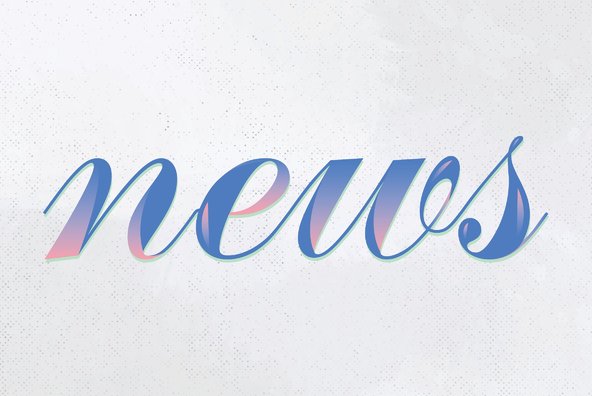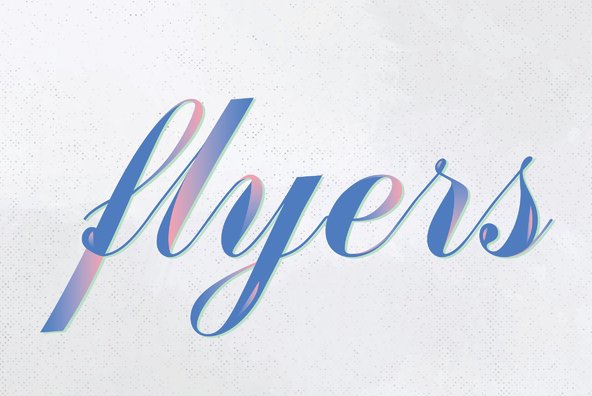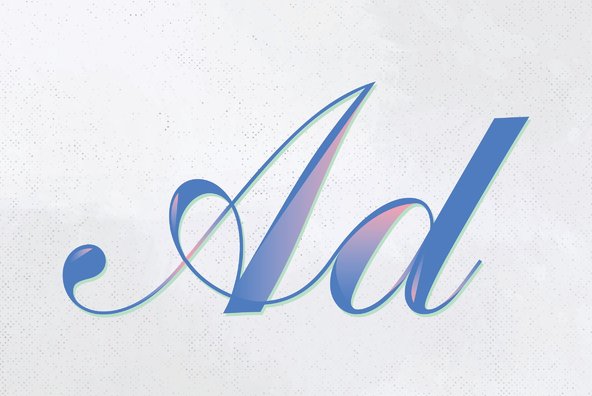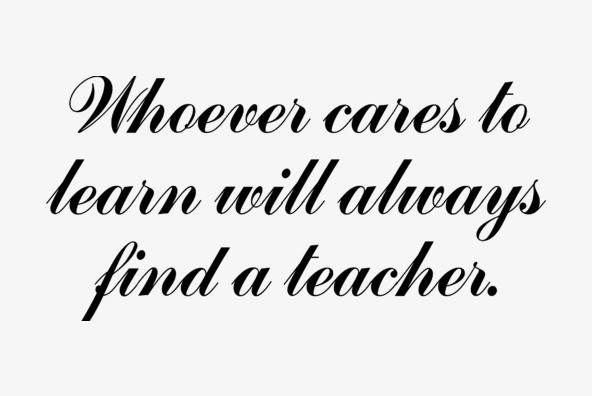
Commercial Script
Designed by Morris Fuller Benton in 1909, Commercial Script is a script font release by URW. Contains language support for West, East, Turkish, Baltic, and Romanian.